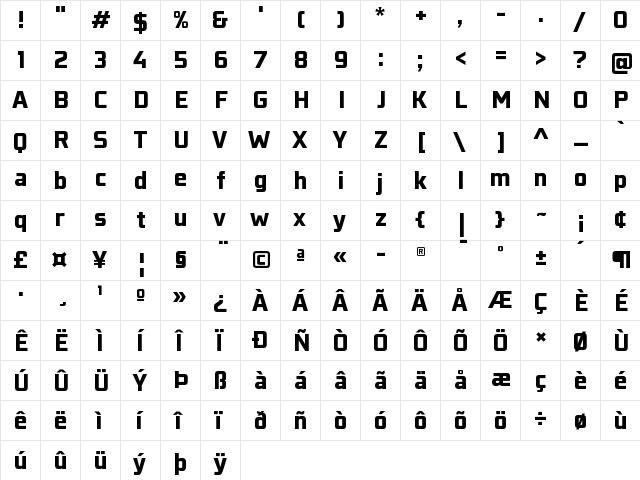
Konkretika Black WIP Regular Font Preview
Konkretika Black WIP Regular
Konkretika Black WIP Regular Font Details
| Designer | Vasily Draigo aka Daymarius |
Design Context for Konkretika Black WIP Typeface
Konkretika Black WIP is a composed and adaptable typeface that performs quietly and consistently across a wide range of design contexts.